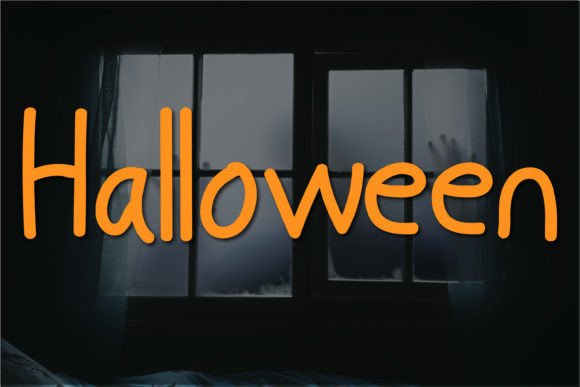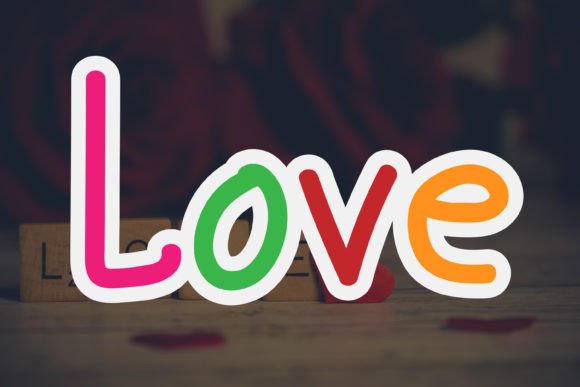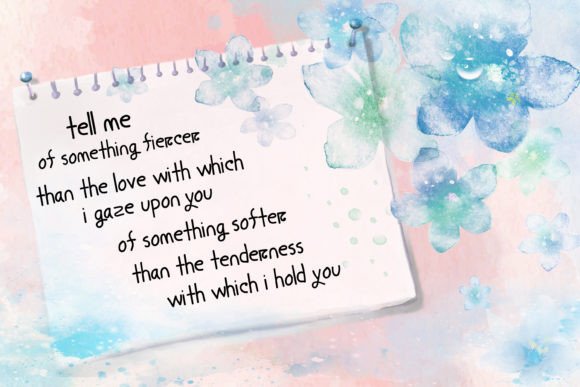
Discover the Best Rainbow Font for Your Crafty Projects
Are you a designer, crafter, or DIY enthusiast looking for a fun and playful font to add a pop of color to your projects? Look no further than the Best Rainbow font! This adorable handwritten font is perfect for making your crafty ideas shine. In this article, we’ll dive into the world of Best Rainbow font, exploring its features, benefits, and uses.
What is Best Rainbow Font?
Best Rainbow is a cute and quirky handwritten font, carefully crafted to bring a splash of color and whimsy to your designs. With its unique and playful style, this font is sure to capture the attention of your audience. Whether you’re creating greeting cards, posters, social media graphics, or any other type of visual content, Best Rainbow font is the perfect choice.
Key Features of Best Rainbow Font
- Handwritten style: Best Rainbow font boasts a charming handwritten style that’s perfect for adding a personal touch to your designs.
- Rainbow colors: As the name suggests, this font features a beautiful rainbow color scheme, making it perfect for projects that require a pop of color.
- Cute and quirky: Best Rainbow font is designed to be fun and playful, making it ideal for crafty projects, DIY tutorials, and social media graphics.
- Easily readable: Despite its playful style, Best Rainbow font is surprisingly easy to read, making it perfect for use in a variety of contexts.
Benefits of Using Best Rainbow Font
So, why should you choose Best Rainbow font for your projects? Here are just a few benefits of using this amazing font:
- Adds a personal touch: The handwritten style of Best Rainbow font adds a personal touch to your designs, making them feel more approachable and relatable.
- Increases engagement: The playful and colorful nature of Best Rainbow font is sure to capture the attention of your audience, increasing engagement and interaction with your content.
- Perfect for crafty projects: Best Rainbow font is specifically designed with crafty projects in mind, making it the perfect choice for DIY tutorials, crafting blogs, and handmade product labels.
- Versatile: This font can be used in a variety of contexts, from digital designs to print materials, making it a versatile addition to your font library.
Using Best Rainbow Font in Your Projects
Now that you know more about Best Rainbow font, let’s explore some ideas for using it in your projects:
- Greeting cards: Add a pop of color and whimsy to your greeting cards with Best Rainbow font.
- Social media graphics: Use Best Rainbow font to create eye-catching social media graphics that are sure to stand out.
- DIY tutorials: Add a personal touch to your DIY tutorials with Best Rainbow font, making them feel more approachable and fun.
- Crafting blogs: Use Best Rainbow font to add a playful touch to your crafting blog, making it more engaging and interactive.
Tips for Getting the Most Out of Best Rainbow Font
To get the most out of Best Rainbow font, here are a few tips to keep in mind:
- Experiment with colors: While the rainbow color scheme of Best Rainbow font is beautiful, don’t be afraid to experiment with different colors to find the perfect combination for your project.
- Pair with complementary fonts: Best Rainbow font pairs well with a variety of fonts, so don’t be afraid to experiment with different combinations to find the perfect match.
- Use it sparingly: While Best Rainbow font is playful and fun, it can be overwhelming if used too much. Use it sparingly to add a pop of color and interest to your designs.
In conclusion, Best Rainbow font is a cute and quirky handwritten font that’s perfect for adding a pop of color and whimsy to your crafty projects. With its unique style, versatility, and ease of use, this font is sure to become a favorite in your font library. So why wait? Download Best Rainbow font today and start adding a touch of magic to your designs!